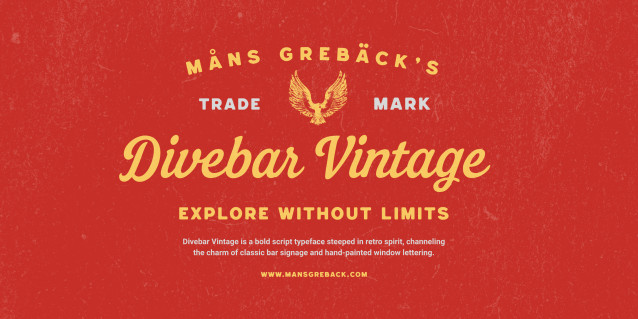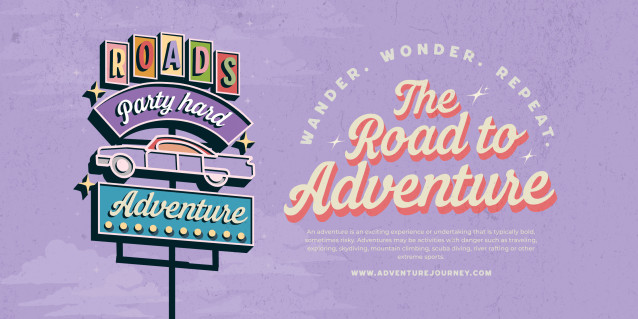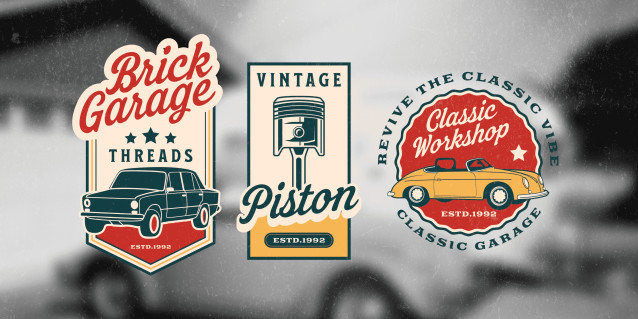
Divebar Vintage Font
Divebar Vintage Font is a bold script typeface steeped in retro spirit, channeling the charm of classic bar signage and hand-painted window lettering. Its curvy strokes and strong contrasts evoke a warm nostalgia, while maintaining a sense of lively confidence.
Designed with expressive swashes and upright rhythm, the font blends a sense of handcrafted personality with typographic precision. It carries the visual essence of neon-lit saloons, roadside diners, and vinyl-era record shops—full of character and charm without losing readability.
The font is built with advanced OpenType functionality and guaranteed top-notch quality, containing stylistic and contextual alternates, ligatures and more automatic and manual features; all to give you full control and customizability.
It has extensive lingual support, covering all Latin-based languages, from North Europa to South Africa, from America to South-East Asia. It contains all characters and symbols you’ll ever need, including all punctuation and numbers.